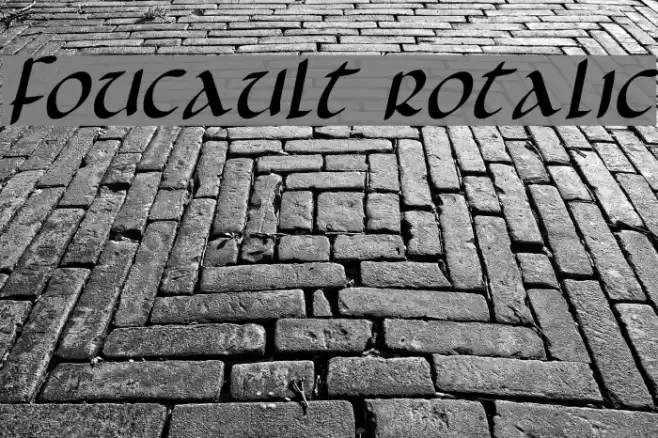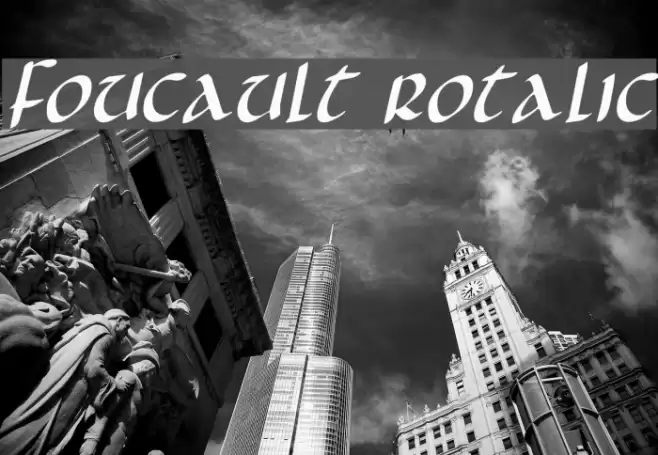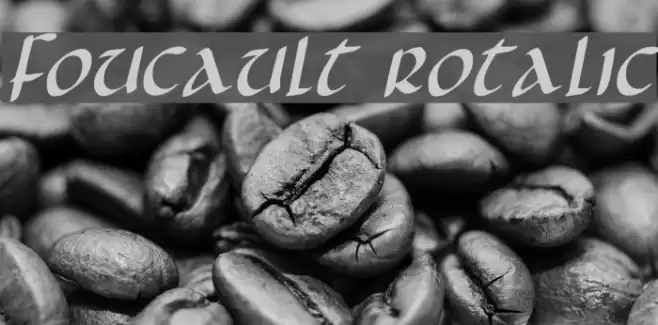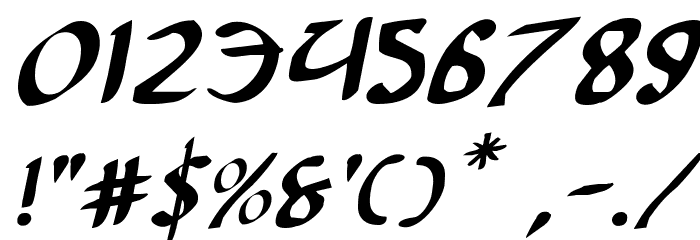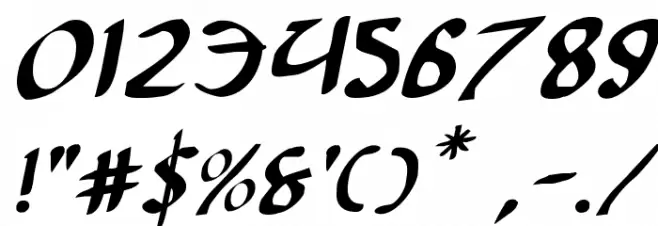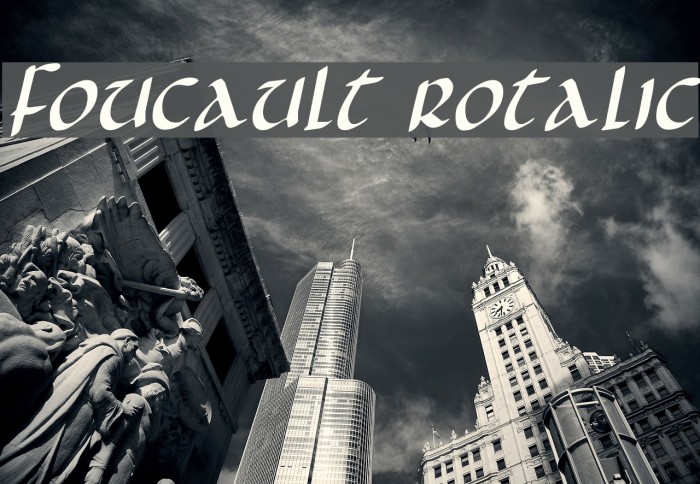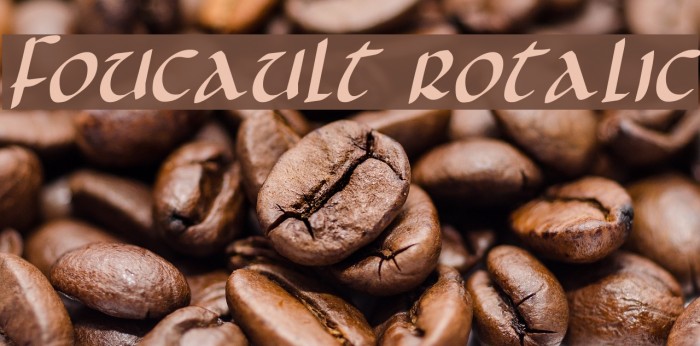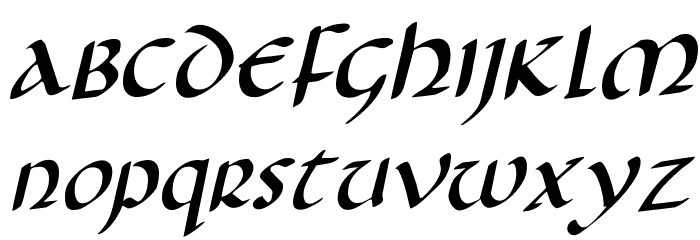
Foucault Rotalic Font
Foucault Rotalic Description
This font features a dynamic and flowing script style with a calligraphic influence. The characters exhibit a slight slant, enhancing the sense of motion and elegance. The strokes are bold and expressive, with varying thickness that adds a dramatic flair. The uppercase letters are distinct and commanding, while the lowercase letters maintain a consistent rhythm. Numbers are uniquely styled, complementing the overall aesthetic. Special characters are creatively integrated, maintaining the font's artistic integrity. This font is ideal for projects that require a touch of sophistication and creativity.
A dynamic, calligraphic script font with bold, expressive strokes and elegant slant from Gothic fonts.
- Proposed Projects: Ideal for wedding invitations, branding, logos, and artistic posters.
- Use Case: Logos, Headlines, Artistic projects